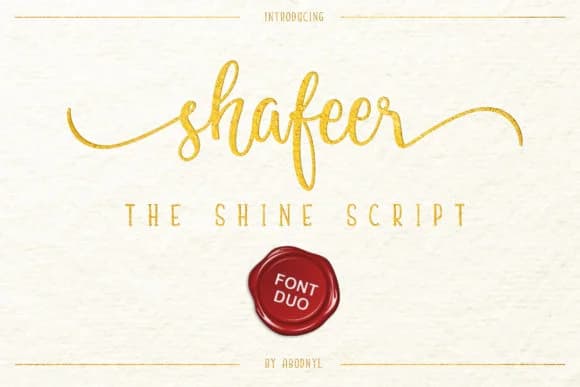
Shafeer Duo Font by Abodaniel is a sophisticated script typeface that seamlessly blends elegant letterforms with striking visual presence. The dual-font structure provides designers with two distinctly complementary styles that work beautifully together or stand independently, creating genuine flexibility for diverse creative applications and professional design needs. This handwritten script excels across numerous professional and creative applications. Wedding invitation suites gain timeless elegance from its flowing character and refined letterforms, perfect for formal stationery systems and announcement suites. Boutique branding projects and luxury product packaging showcase its refined aesthetic beautifully, while greeting card designs benefit from its warm, authentic personality and distinctive charm. Event signage, restaurant menus, and lifestyle brand social media graphics all demonstrate the font's versatile character and tonal range. The dual-font structure enables creative exploration, layering complementary styles within single designs, using each for distinct typographic hierarchy, or creating sophisticated compositions with multiple weights working in perfect harmony. Whether you're crafting formal occasions, designing upscale packaging systems, or building cohesive brand identities that demand personality and visual polish, Shafeer Duo Font offers the versatility and refined charm your work truly deserves. Discover this elegant typeface on Creative Fabrica and bring distinctive character and sophistication to your next project.
Shafeer Duo Font is a script font that shines as a display or heading face. Pair it with a clean sans-serif or serif font for body text β the contrast creates a clear hierarchy while the two styles stay balanced and easy to read.
Shafeer Duo Font
by Abodaniel